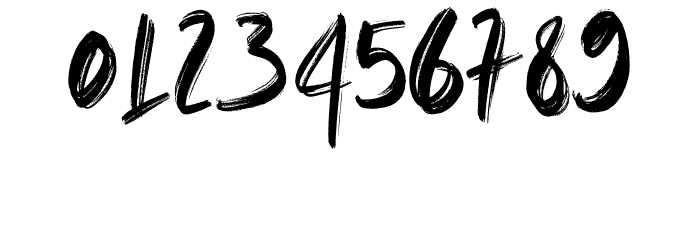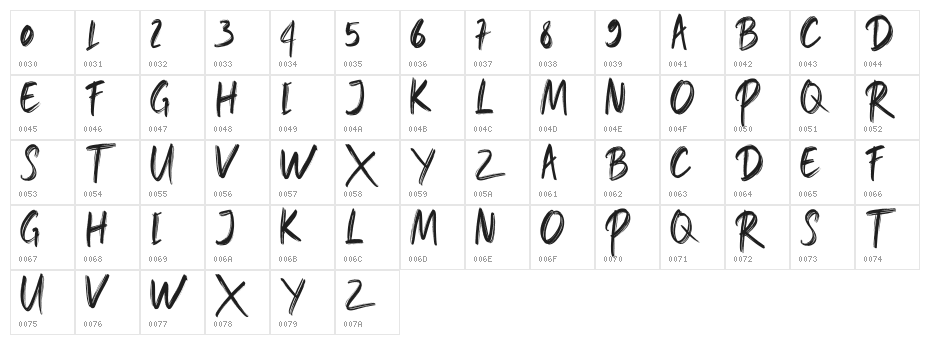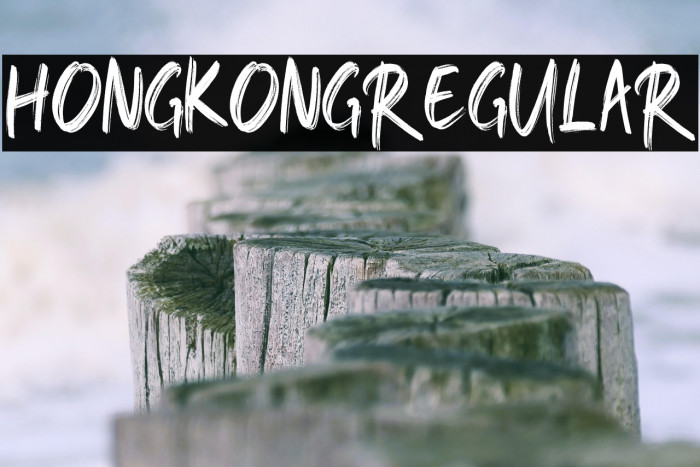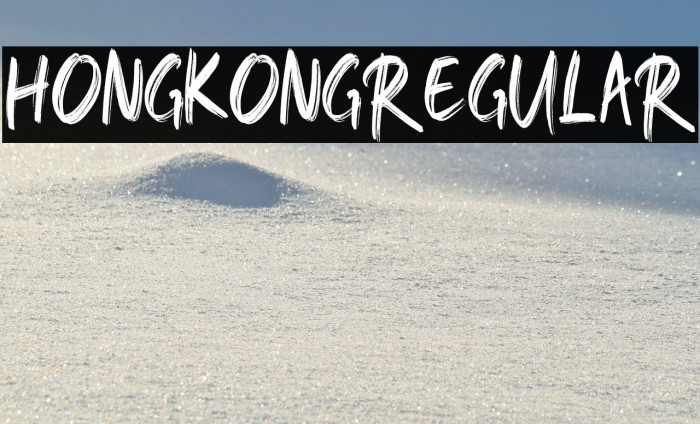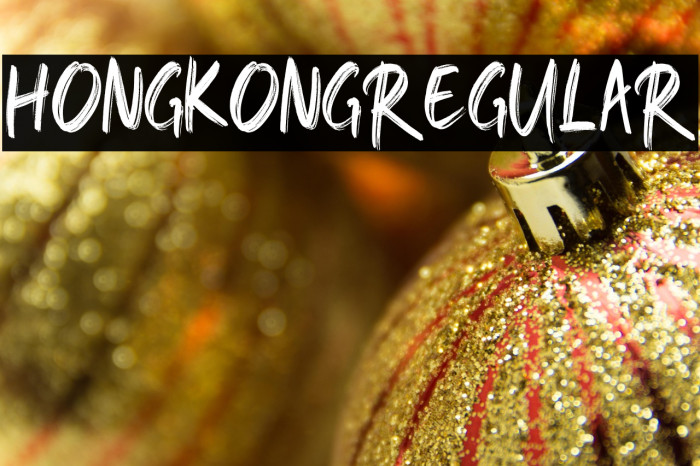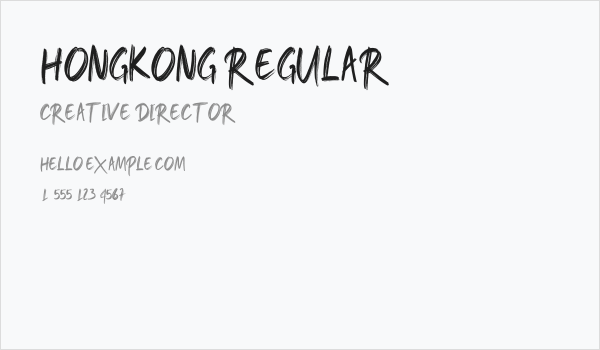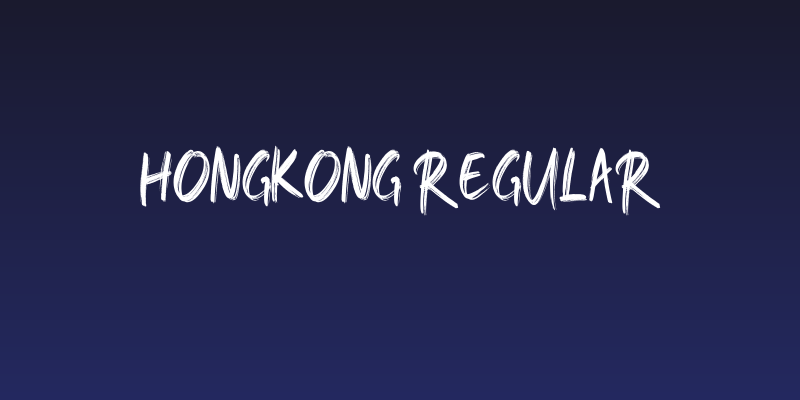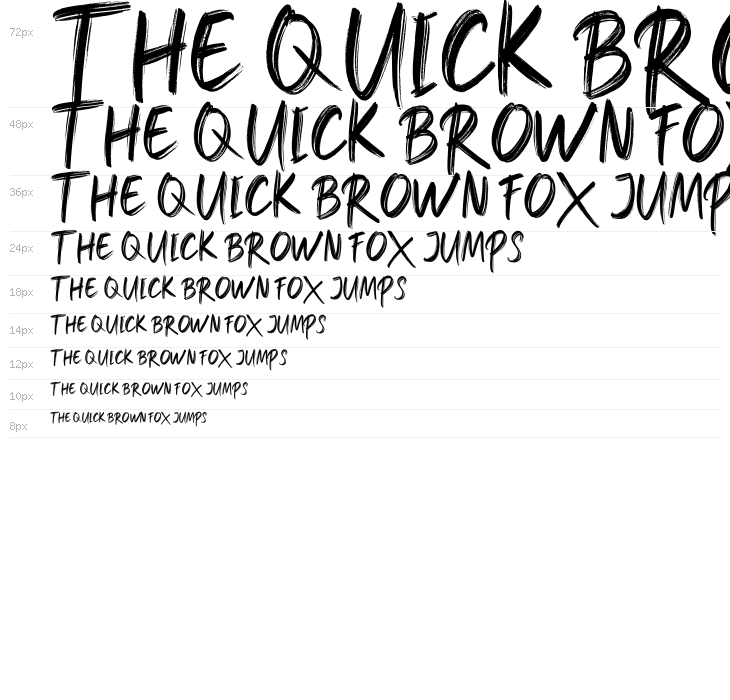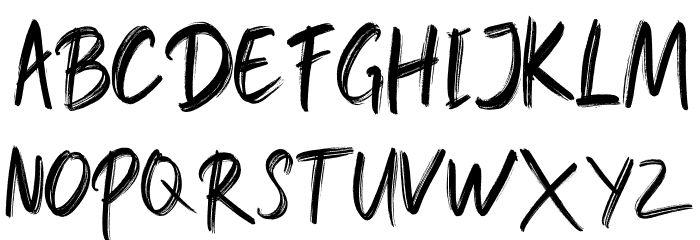
HONGKONG-Regular Font
HONGKONG-Regular Description
This font exhibits a dynamic and energetic handwritten style, characterized by bold, sweeping strokes that convey a sense of movement and fluidity. The letters are slightly slanted, adding to the casual and informal appearance. Each character is distinct, with varying stroke thickness that gives a textured, brush-like effect. The uppercase and lowercase letters maintain a consistent style, while the numerals and special characters integrate seamlessly, enhancing the font's versatility. This font's expressive nature makes it ideal for creative and artistic projects, where a personal touch is desired.
| Proposed Projects | Ideal for branding, posters, invitations, and social media graphics that require a personal and artistic touch. |